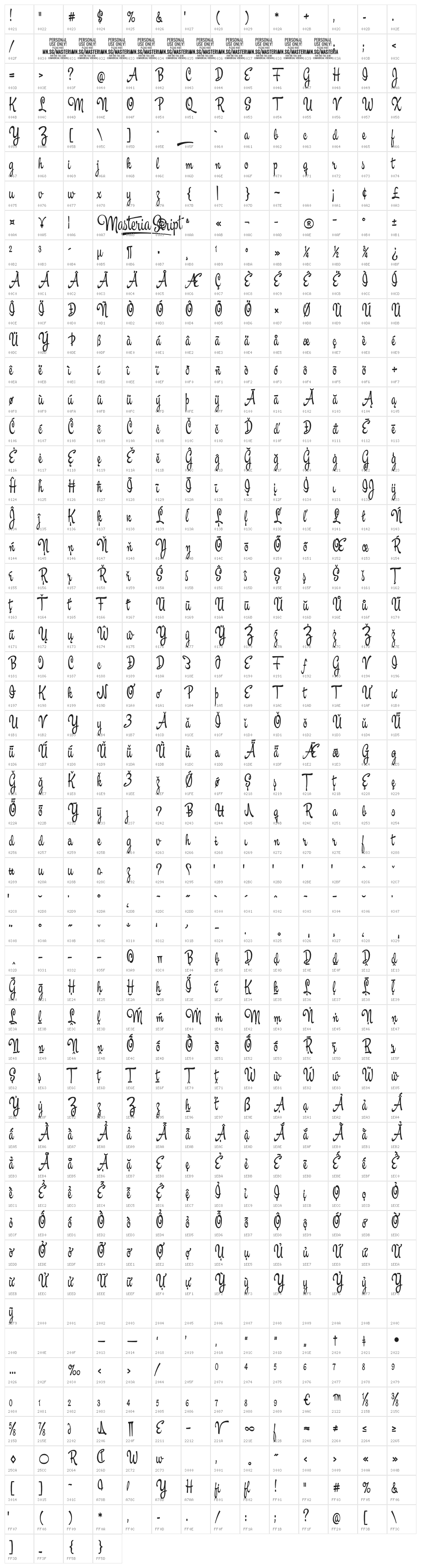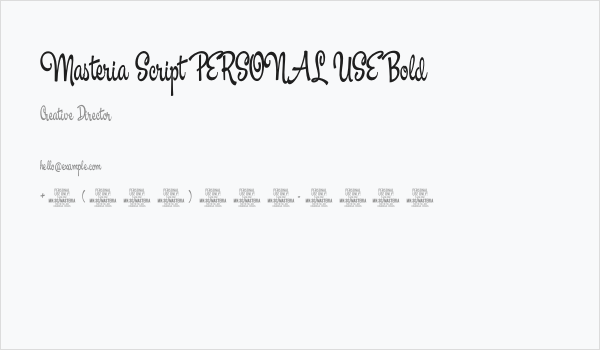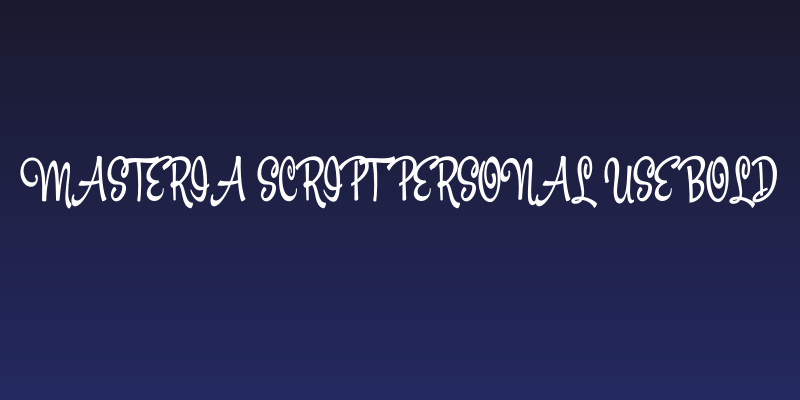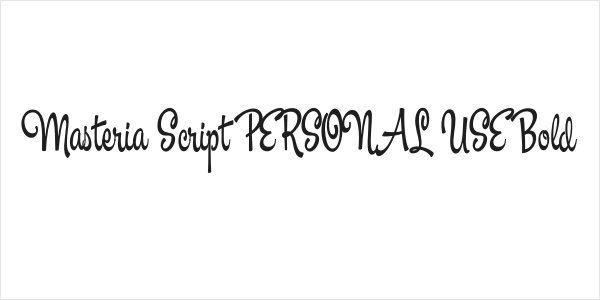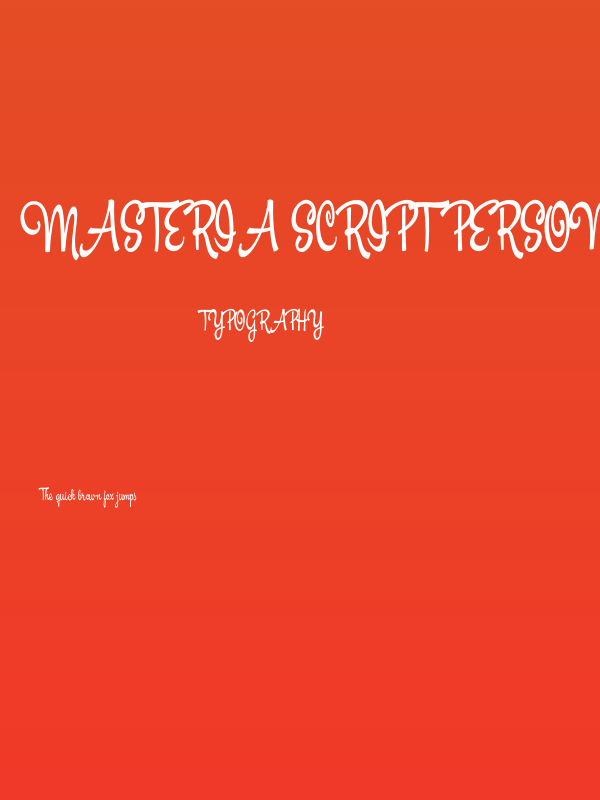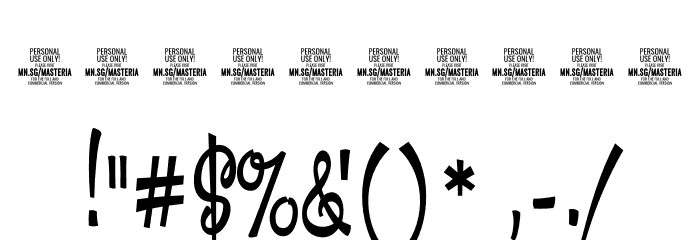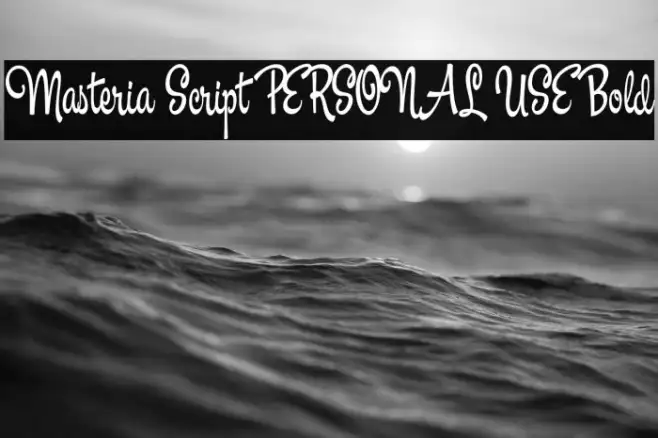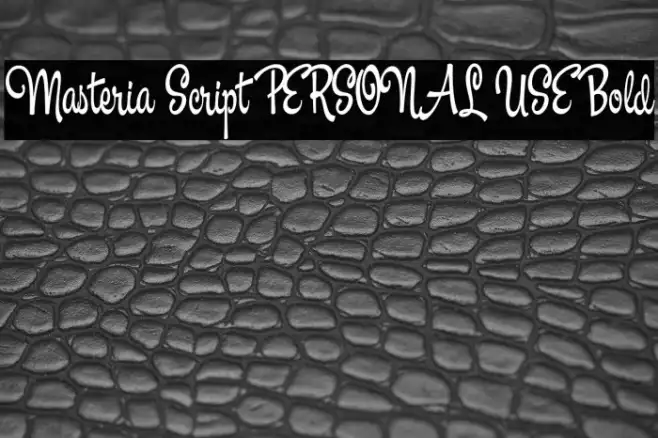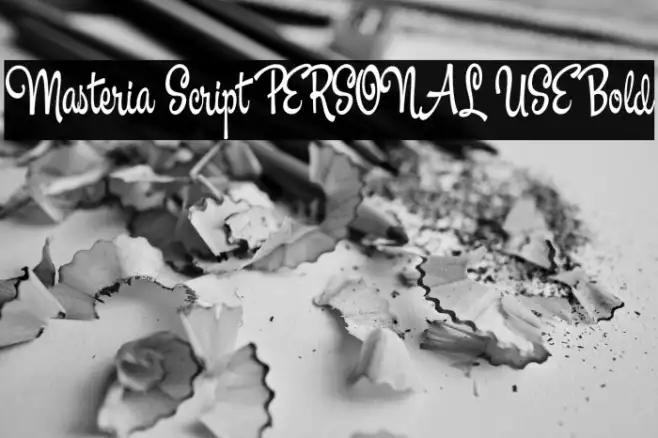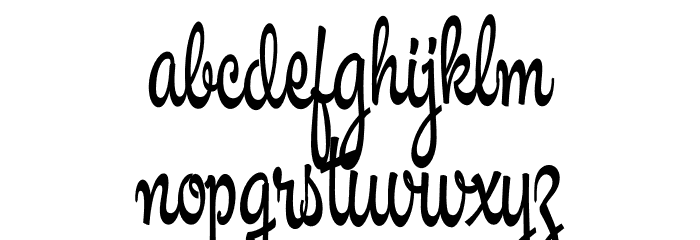
Masteria Script PERSONAL USE Bold Font
Masteria Script PERSONAL USE Bold Description
This font features a bold, flowing script style with a playful and elegant appearance. The uppercase letters exhibit a dramatic flair with sweeping curves and loops, while the lowercase letters maintain a consistent, connected flow, enhancing its script nature. The numerals and special characters are designed to complement the alphabet with similar curves and strokes, ensuring a cohesive look. The overall design is both decorative and legible, making it suitable for creative projects that require a touch of sophistication and personality.
| Use Case | Logos, Invitations, Decorative Text |
| Proposed Projects | Ideal for wedding invitations, greeting cards, branding, and logo design where a personal and elegant touch is desired. |